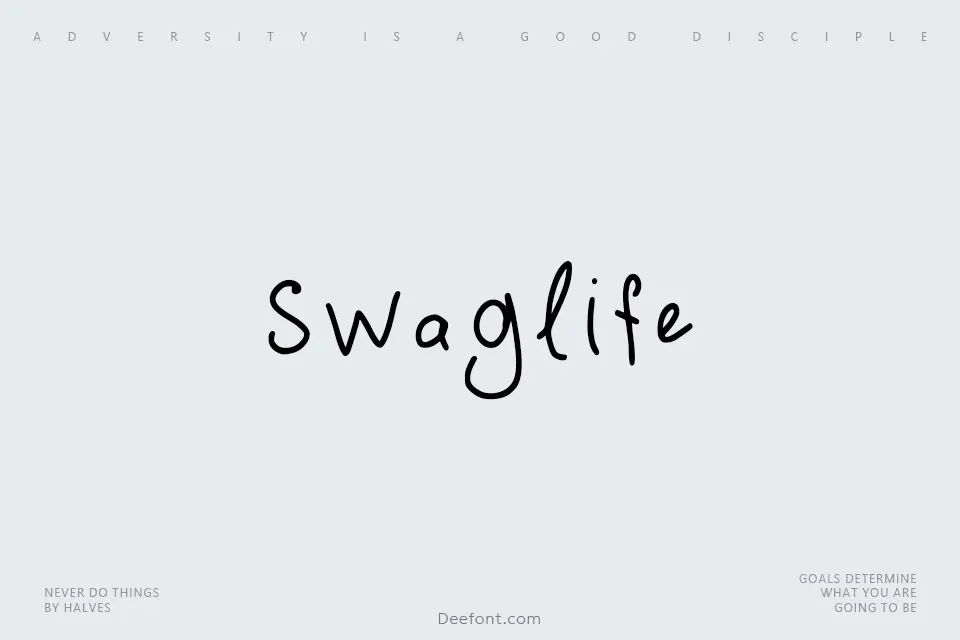
Swaglife Font
Swaglife is a casual handwritten script font that brings youthful energy and informal charm to any design project. With its fluid, connected strokes and slightly irregular letterforms, the typeface exudes spontaneity and movement. The playful character of each letter conveys an approachable, energetic personality ideal for social media posts, greeting cards, poster headlines, and contemporary branding. Its monoline aesthetic and natural rhythm make it perfect for projects targeting younger audiences or designs that benefit from a relaxed, authentic handwritten feel.